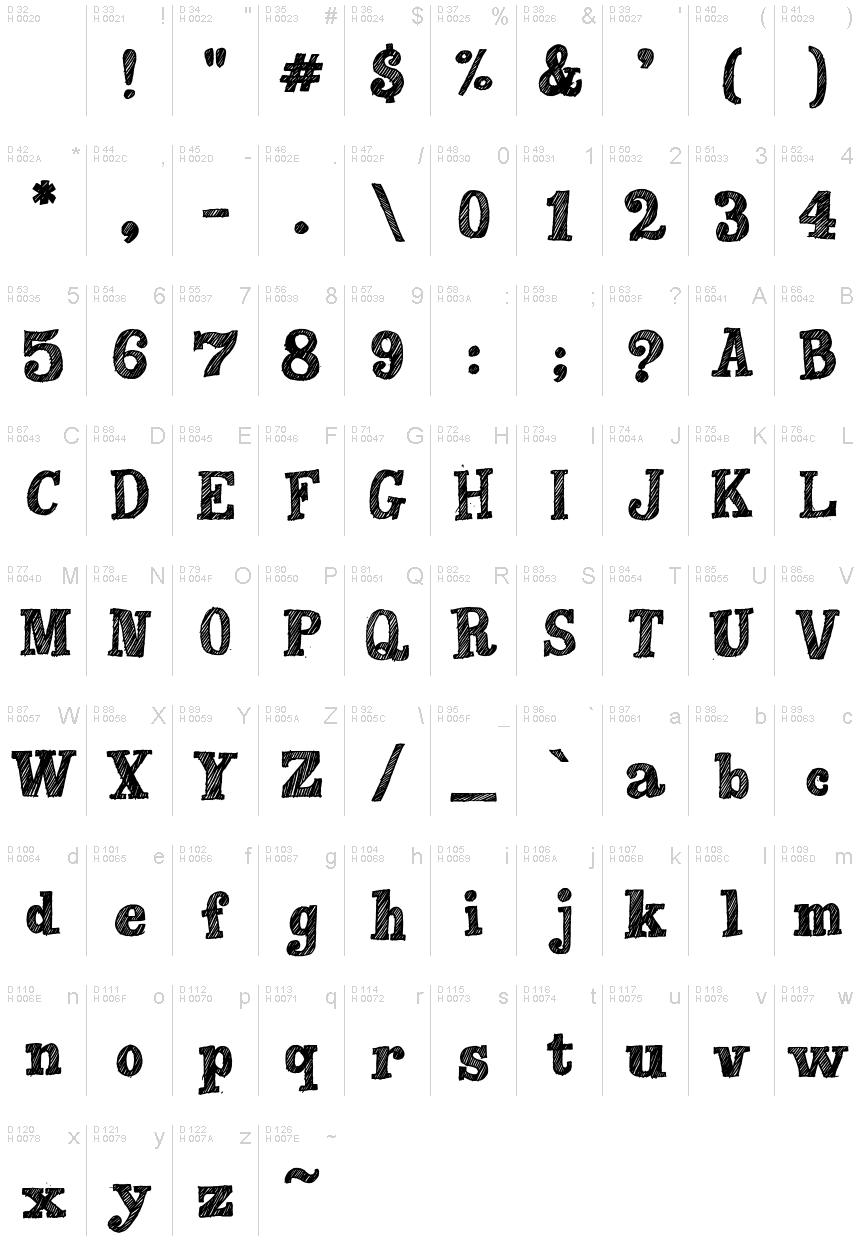
Peaches en Regalia
Peaches en Regalia is a bold, display font that commands attention with its striking, hand-drawn aesthetics. Infused with a playful yet refined spirit, this typeface boasts irregular, organic letter forms that exude a sense of artisanal charm. Its thick, textured strokes and asymmetrical design elements lend a dynamic, expressive quality, making it an ideal choice for impactful headlines, posters, and branding applications that aim to captivate the viewer.
Peaches en Regalia's distinctive style effortlessly bridges the gap between modern and vintage, allowing it to seamlessly integrate into a wide range of design contexts. From retro-inspired poster designs to contemporary packaging and editorial layouts, this versatile font can elevate any project with its unique flair and personality.